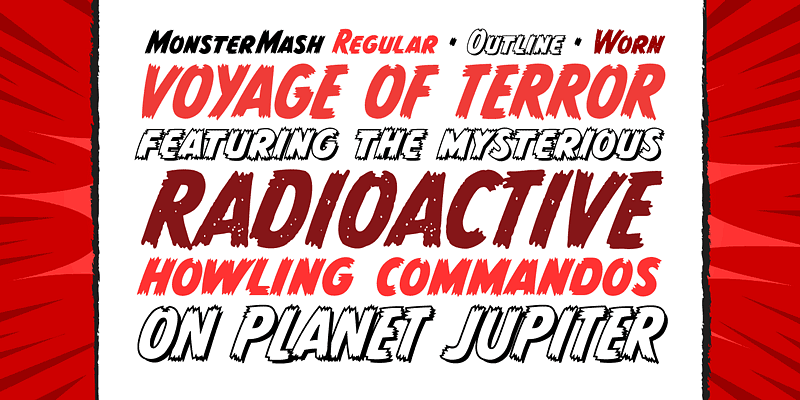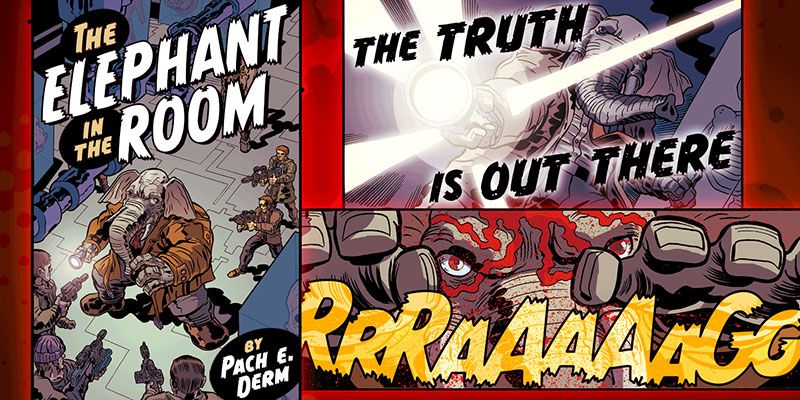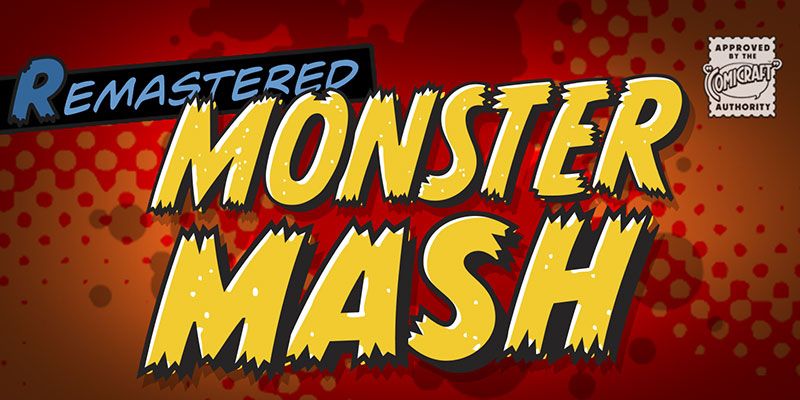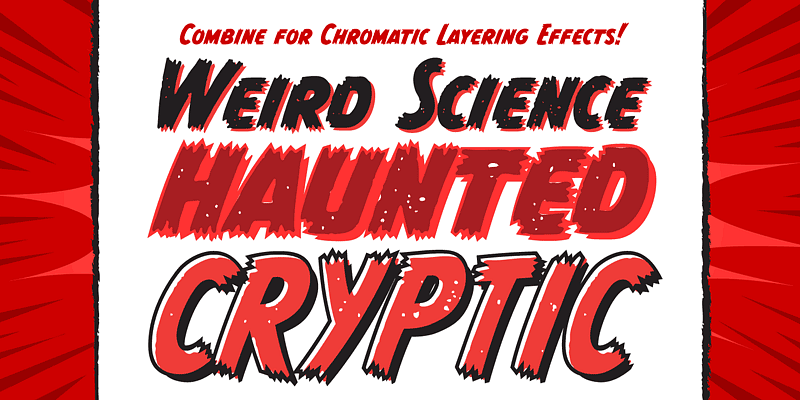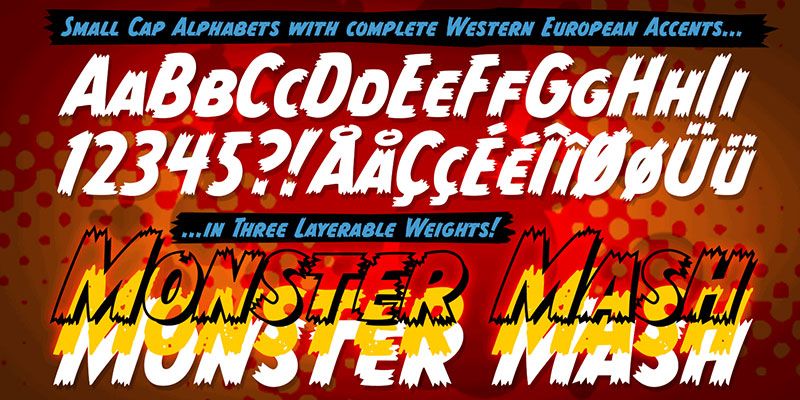
While working on our Macs late at night, Our Eyes beheld an Eerie Type. It’s called The Mash! It’s called MONSTER MASH! Great for use in comics book and horror!